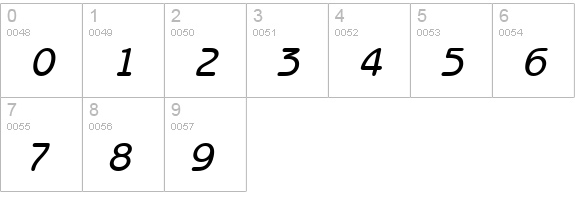
Beagle Bold Italic is a strong, high-contrast, italic variant in the Beagle typeface family \xE2\x80\x94 well suited to headlines, attention-grabbing titles, and strong calls-to-action.
Introducing Beagle Bold Italic font, a versatile and modern typeface that exudes confidence and style. This dynamic font is perfect for making a bold statement in your designs, whether it's for branding, advertising, or editorial purposes. With its sleek and elegant italicized letterforms, Beagle Bold Italic font adds a touch of sophistication to any project. The strong, clear lines of this typeface make it easy to read while still maintaining a sense of creativity and flair. And the best part? Beagle Bold Italic font is available for free download at FontsMarket.com! That's right, you can elevate your designs with this eye-catching font without breaking the bank. Don't miss out on the opportunity to add Beagle Bold Italic font to your font library today.